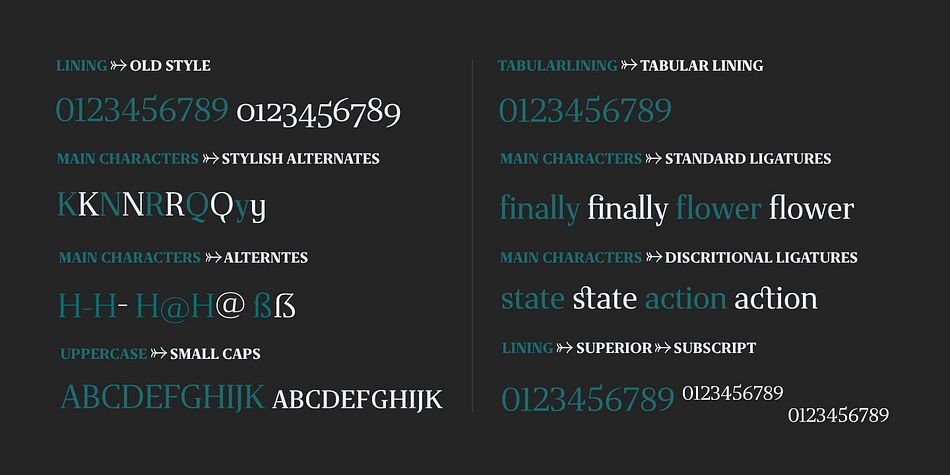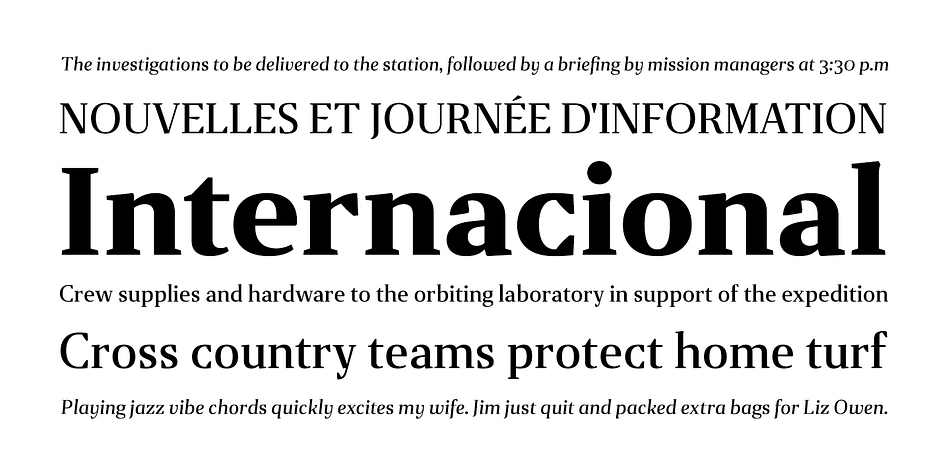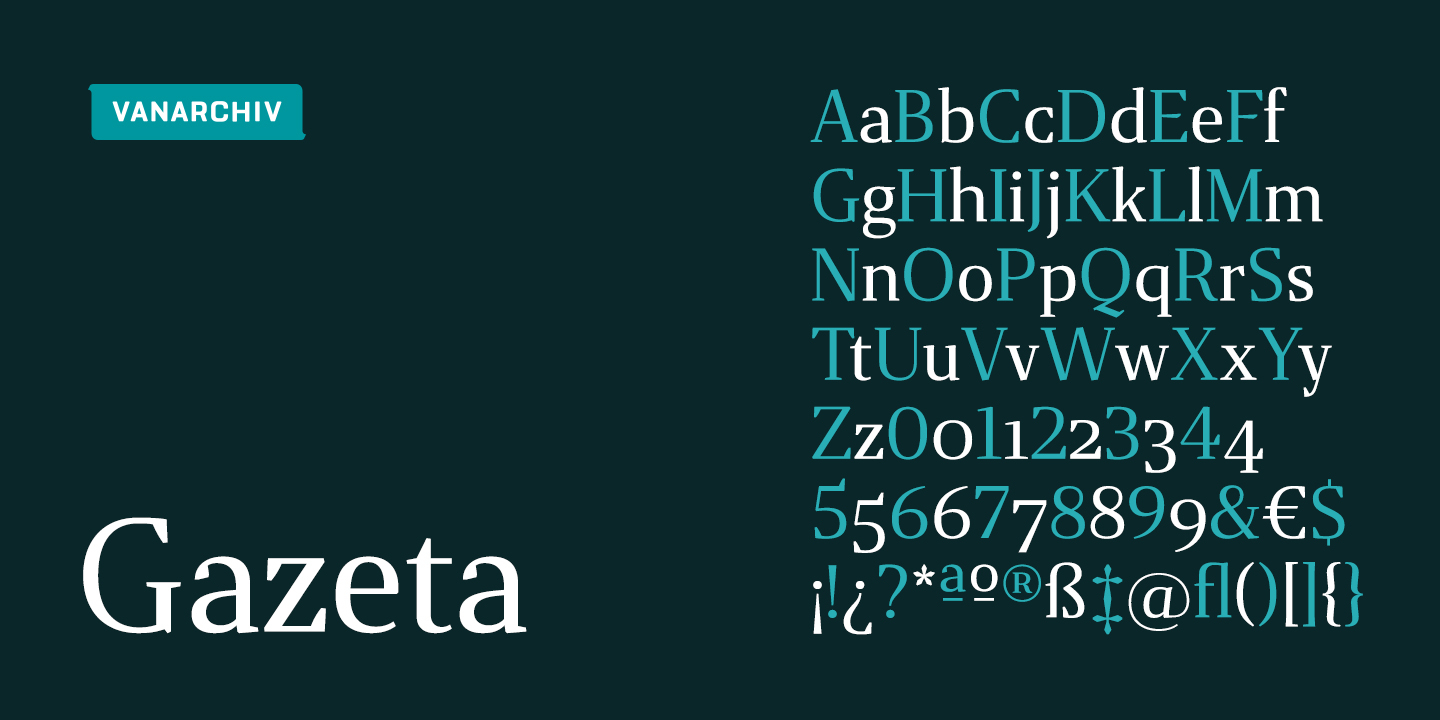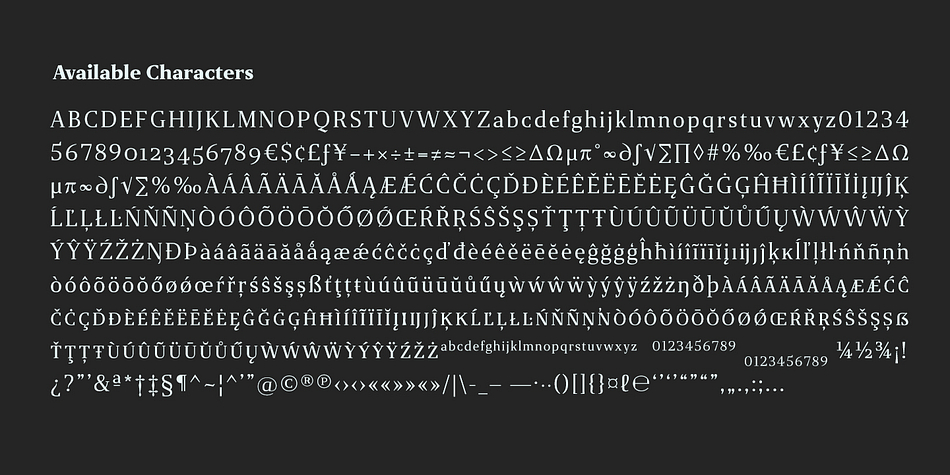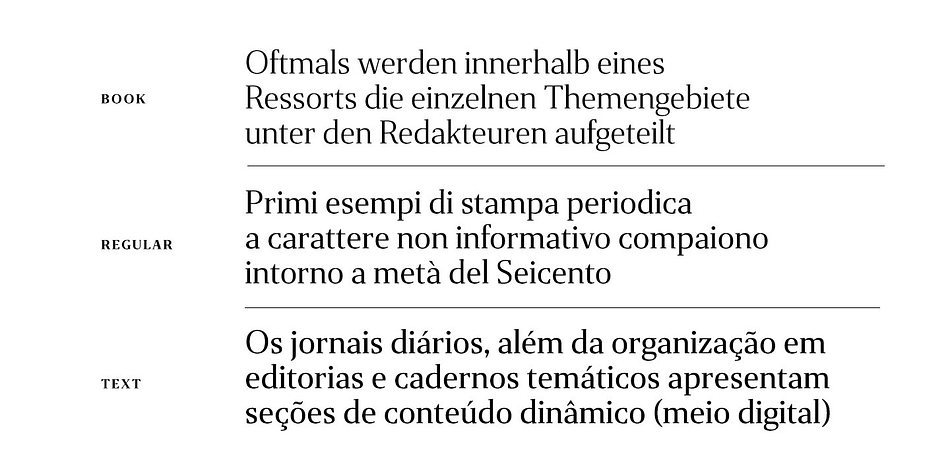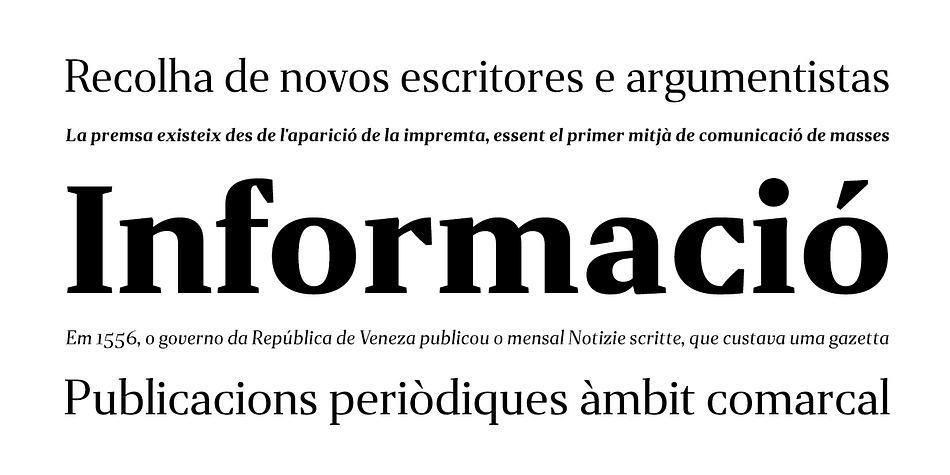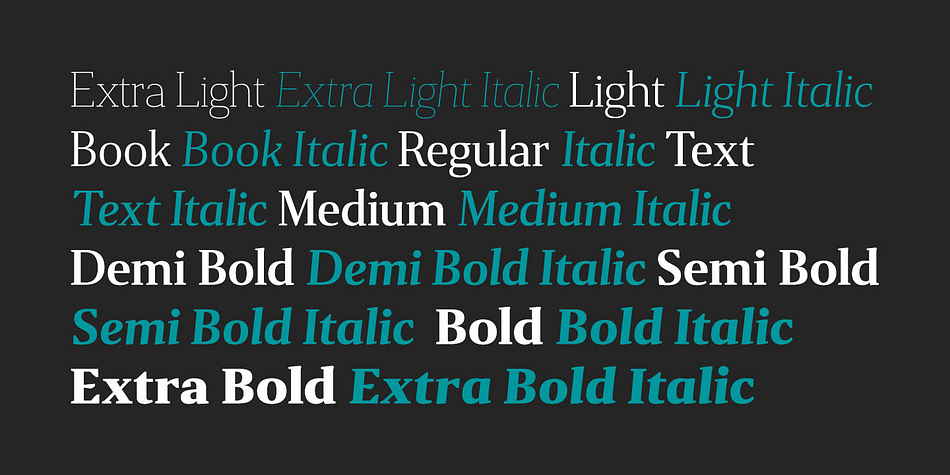
Designed by Ricardo Santos, Gazeta is a serif font family. This typeface has twenty styles and was published by Vanarchiv.
This typeface was designed for editorial purposes (text sizes), where the letterforms contain short serifs (more economical).
This font family contains different weights (from Extra Light until to Extra Bold) to create an simple and sequential typographic hierarchy scale. There are two different weights and options designed specifically for text sizes (Regular and Text).
The Gazeta design is classical but contain some contemporary details, which are not distractive for reading. It’s simple and clean at small sizes.
This font family includes italics, small caps, ligatures, old style and tabular figures.